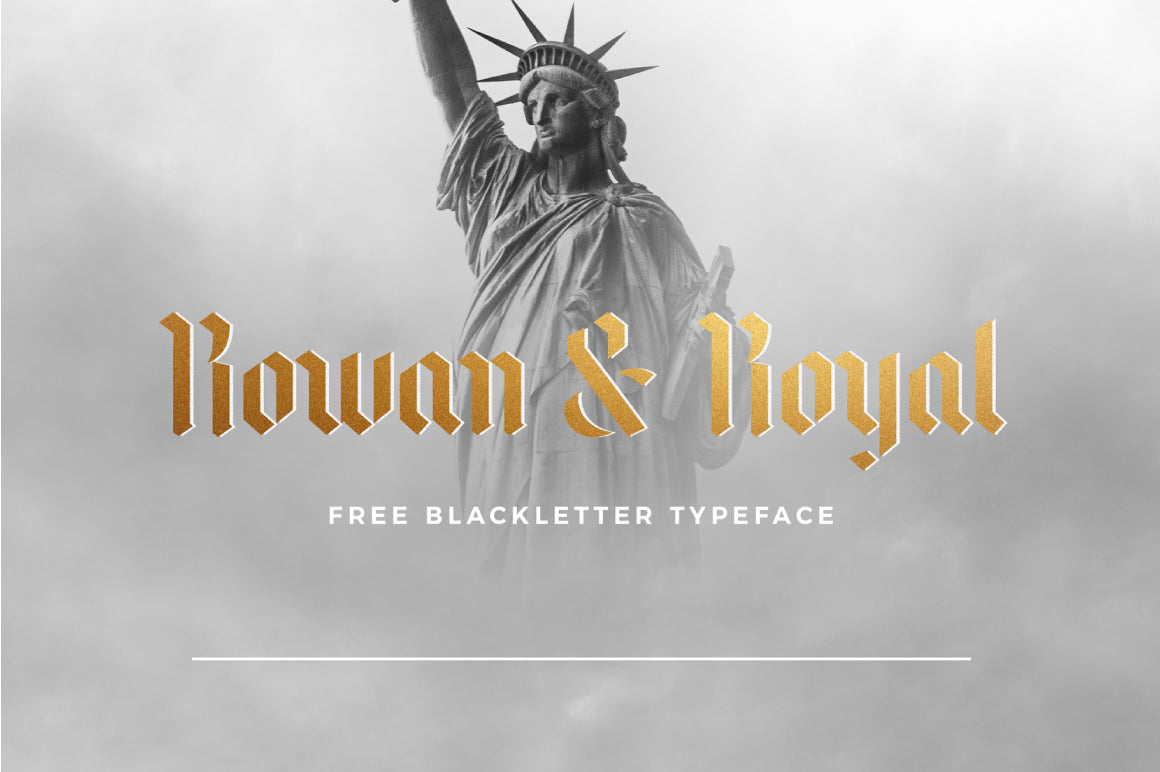
Free Rowan and Royal Blackletter Font
Today we're glad to feature this free rowan and royal blackletter font. 1871 Project has created this amazing and beautiful font. You can create a professional designs with this fancy font.